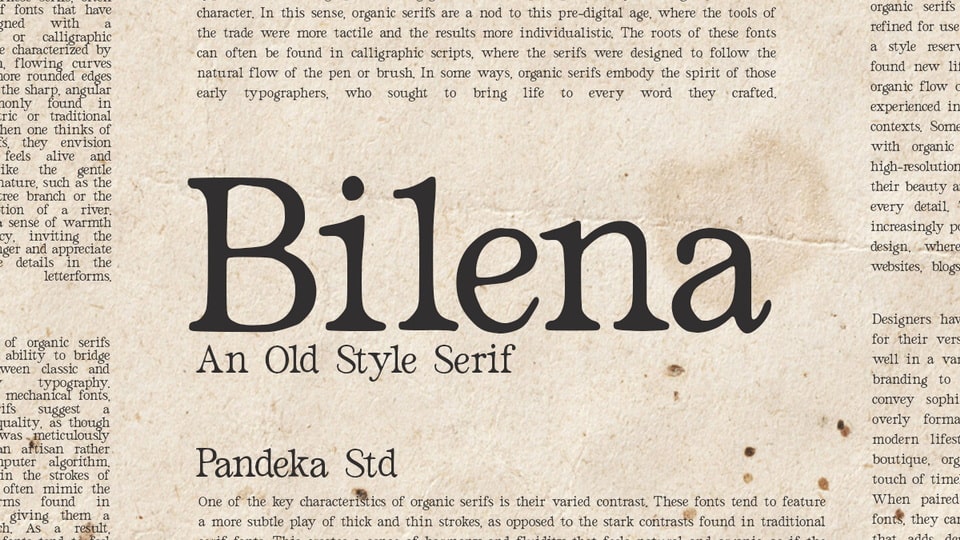
Download Bilena font, an old-style serif typeface with a handcrafted, timeless design, perfect for classic typography, vintage aesthetics, and elegant lettering.